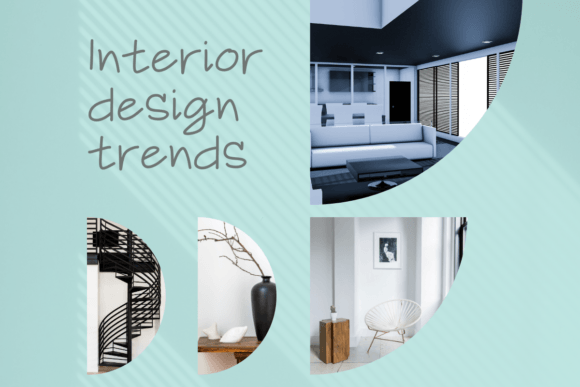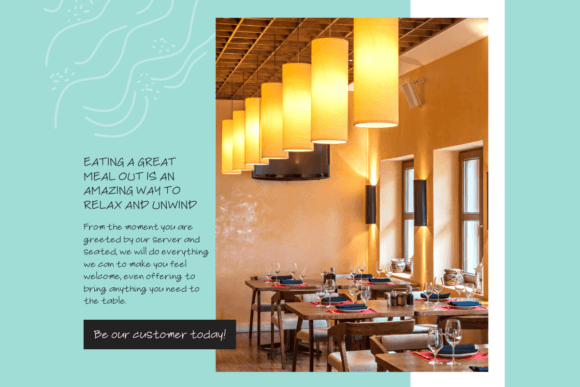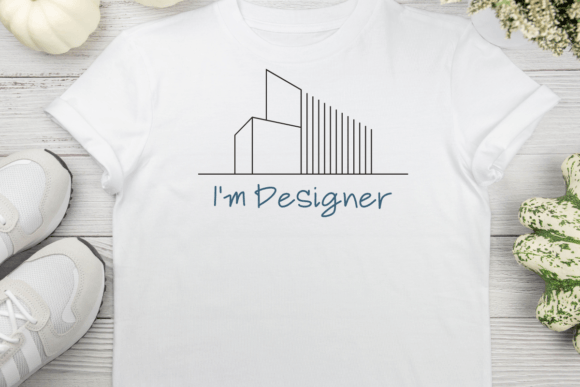
Introduction to Neat Designer Font
Have you ever been in the middle of a creative project, staring at a blank page, and suddenly, the perfect font pops into your mind? For many designers, this moment is the spark that ignites their imagination and brings their ideas to life. One such font that has been making waves in the design community is the Neat Designer Font, a beautiful handwritten font that’s perfect for digital note-taking and a variety of other creative projects.
As a valuable resource for designers, the Neat Designer Font offers a high-quality, free download that can be used with a transparent background, making it easy to incorporate into any design. Whether you’re working on a Procreate design, blog post, logo, or digital planner, this font is sure to add a touch of elegance and sophistication to your work.
- High-quality font with a transparent background, ideal for creative projects and designs that require a clean aesthetic.
- Features a unique, modern design with clean lines and minimal ornamentation, perfect for a wide range of creative projects.
- Designed to be highly legible at various font sizes, from 12pt to 48pt, making it suitable for both small and large-scale designs.
- Includes a comprehensive character set, covering Latin, Cyrillic, and Greek alphabets, making it a versatile font for global audiences.
Honest Review: Neat Designer Font
I recently had the chance to experiment with the Neat Designer Font and I must say it’s been a delightful addition to my design workflow. The font is perfect for creative projects that require a touch of elegance and sophistication.
- ✨ High-quality design: The Neat Designer Font is a beautifully crafted font that is sure to elevate your design projects.
- ✨ Transparent background: The font’s transparent background allows for easy layering and blending with other design elements.
Overall, I’m thoroughly impressed with the Neat Designer Font. Its unique style and high-quality design make it an excellent choice for creative projects. I would highly recommend it to fellow designers looking for a free and versatile font.
Use the Neat Designer Font on a transparent background to create a clean and modern look.
Use the Neat Designer Font in a variety of creative projects, including logos, brochures, and social media graphics.
Apply the font to your website or blog to create a cohesive and stylish brand identity.